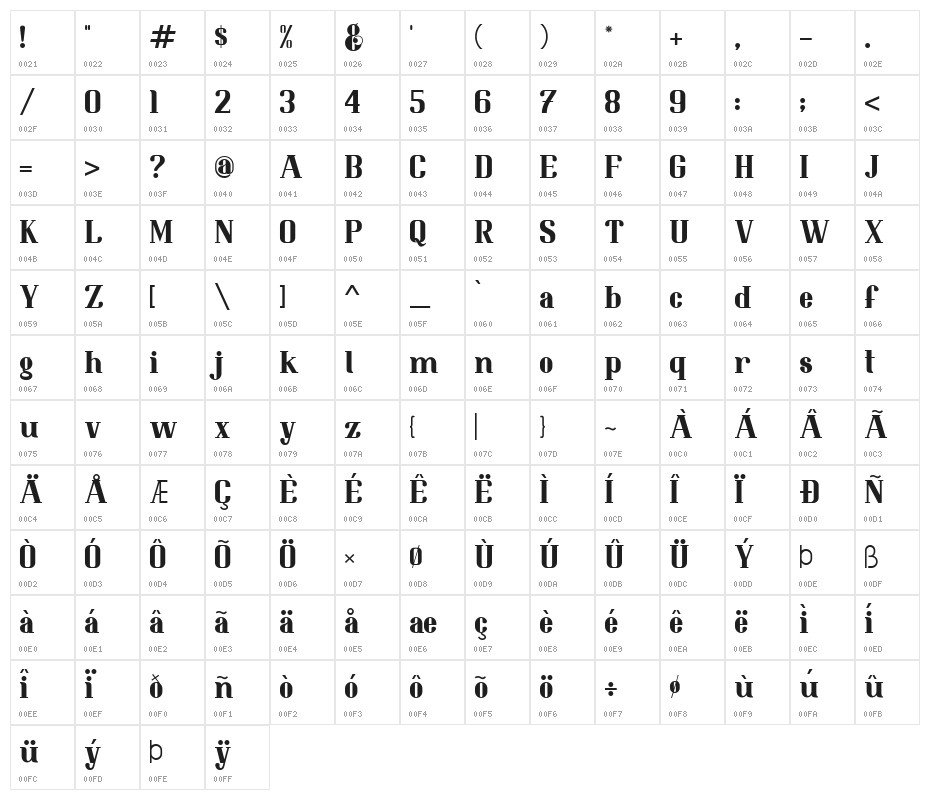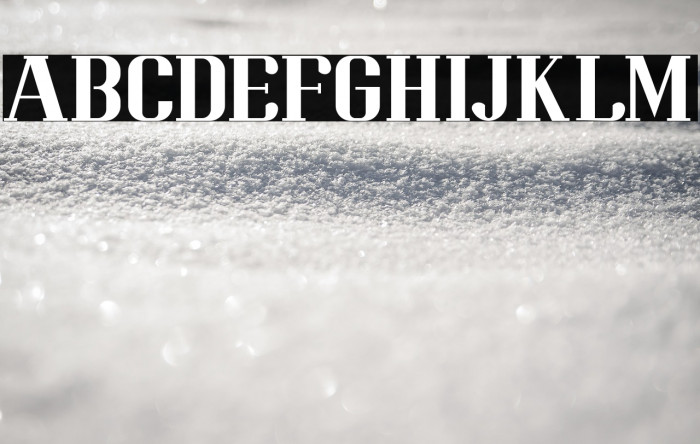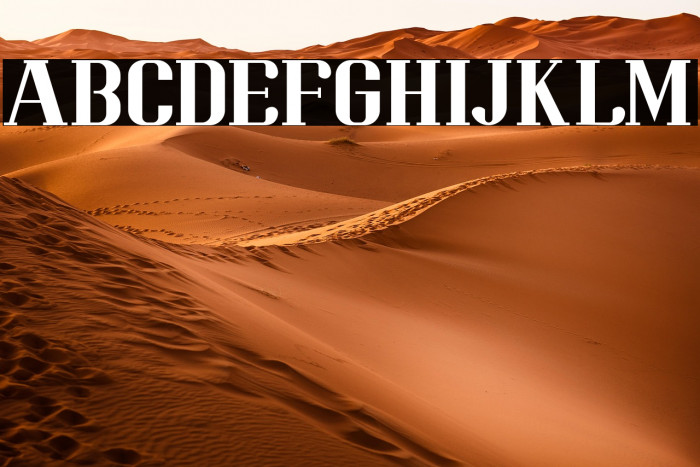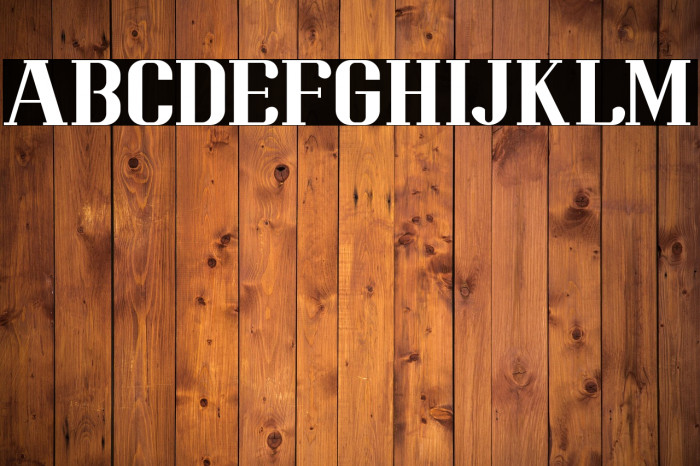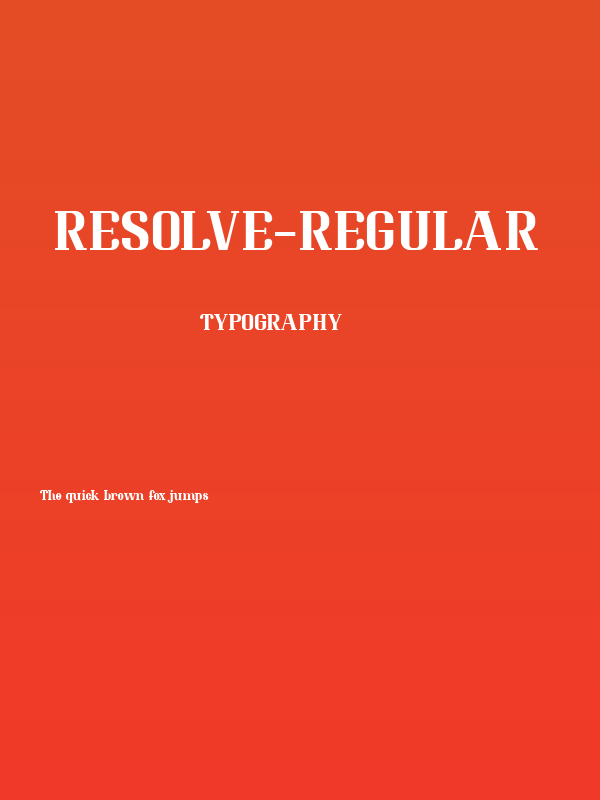
Resolve-Regular Font
Resolve-Regular Description
This font exhibits a bold and assertive style with a strong presence, characterized by thick, consistent strokes and a modern serif design. The uppercase letters are tall and commanding, while the lowercase letters maintain a balanced and harmonious appearance. Numbers are clear and legible, making them suitable for various applications. The special characters are well-defined, adding to the font's versatility. Overall, this typeface combines traditional serif elements with a contemporary twist, making it ideal for impactful and attention-grabbing designs.
| Proposed Projects | Ideal for branding, headlines, posters, and editorial design where a strong, authoritative presence is desired. |